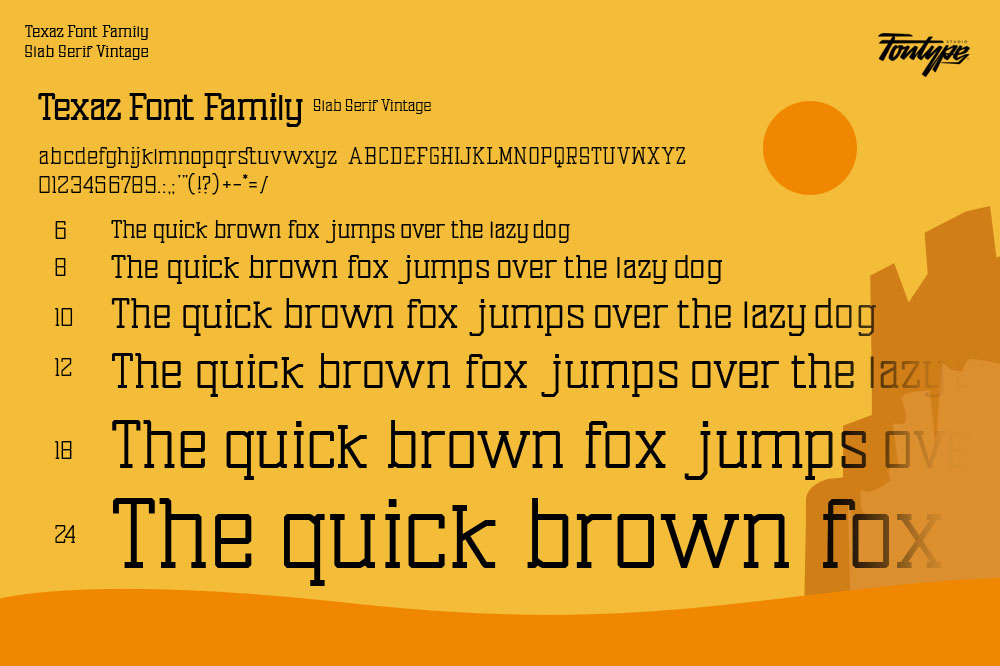
Texaz Font Family - Slab Serif Vintage Font Style
The texaz font is a visual achievement of a typeface inspired by a small town named (Rodeo) with a legend around the 19th century by cowboys, located in North America. That’s why we’ve created this font to look and feel bold, strong, tough, and persistent.
This font is also very suitable for hunting outdoor logos, classics, event shows / festivals, and many more that you want.